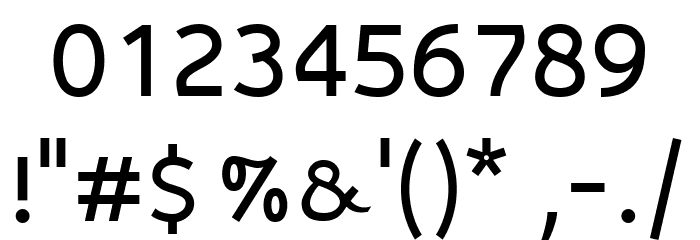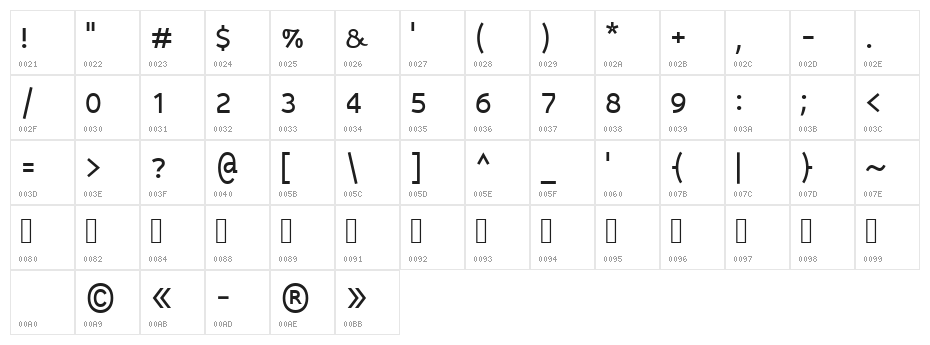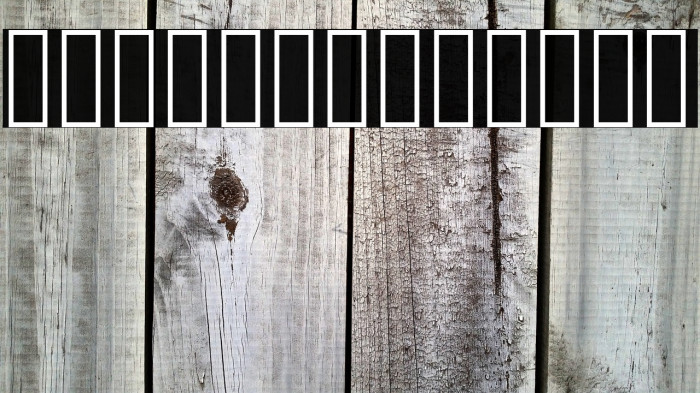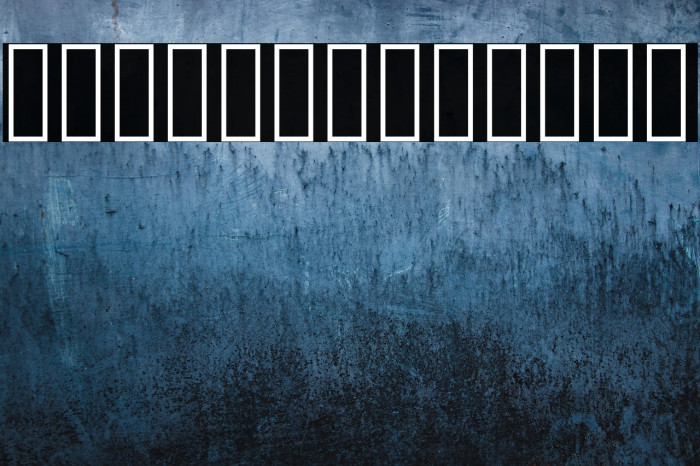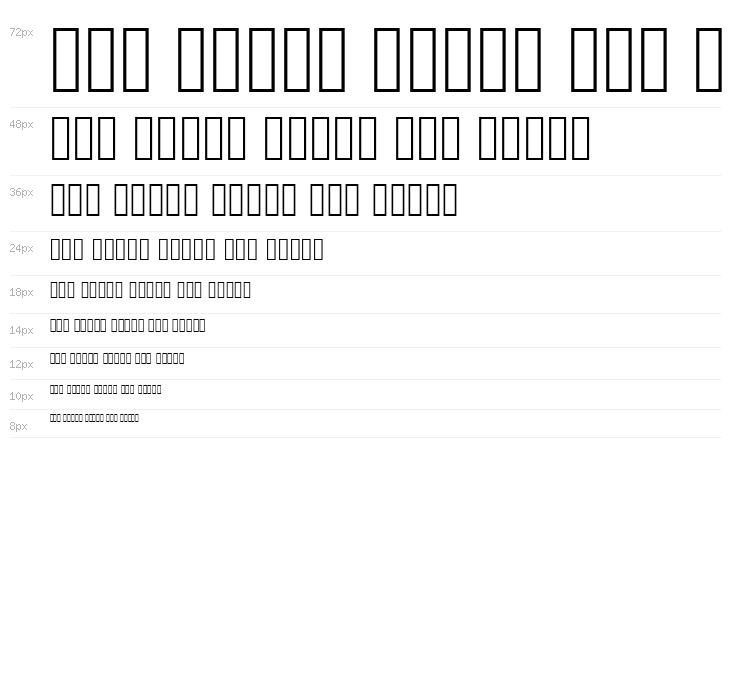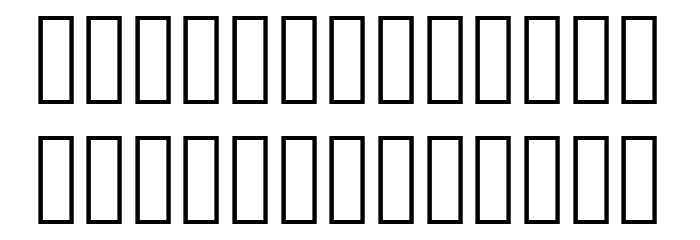
Carmelit Regular Font
Carmelit Regular Description
This font features a clean and modern sans-serif design with smooth curves and a balanced structure. The characters are well-proportioned, offering a harmonious appearance that is both professional and approachable. The numerals are clear and distinct, making them easy to read. The special characters are designed with simplicity and functionality in mind, ensuring they integrate seamlessly with the rest of the typeface. Overall, this font exudes a sense of clarity and precision, making it suitable for a wide range of applications.